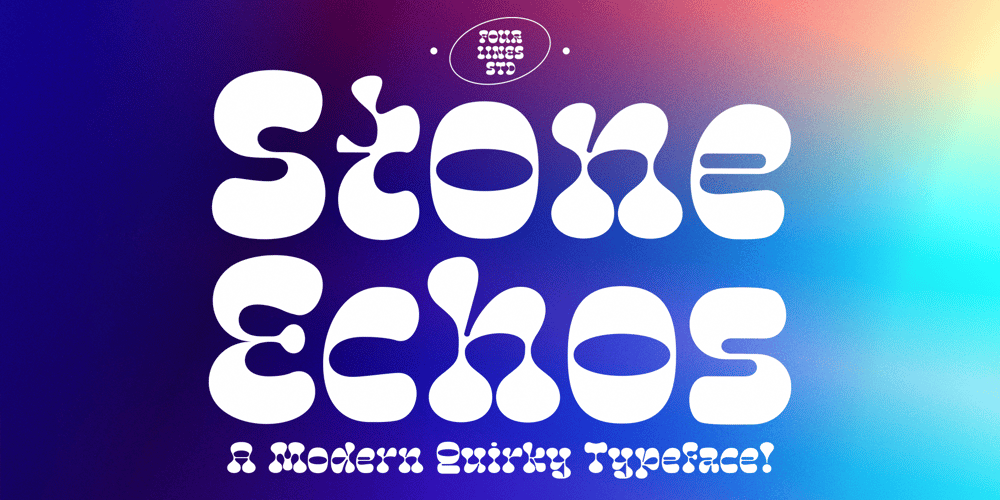
Stone Echos Font Family was designed by Zain Fahroni and published by Four Lines Std. Stone Echos contains 1 styles and family package options. Say hello to Stone Echoes Typeface – the cool modern font for your projects! Its rounded, bubbly shapes add a hint of contemporary chic to your designs, balancing both playfulness and sophistication. Whether you’re creating a sleek logo or a cool poster, Stone Echoes has got your back, with its edgy yet polished characters bringing life to all your creative ideas.